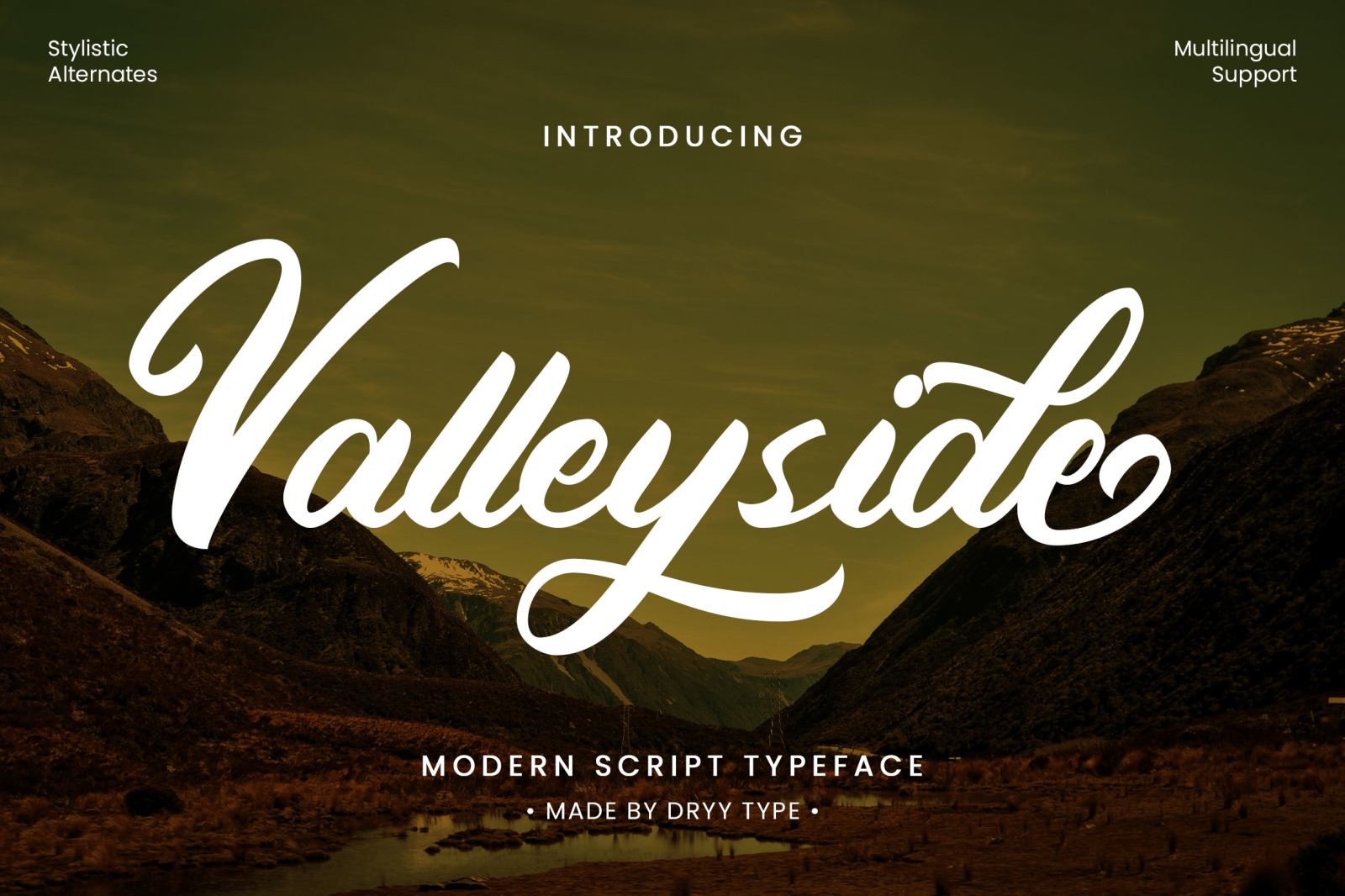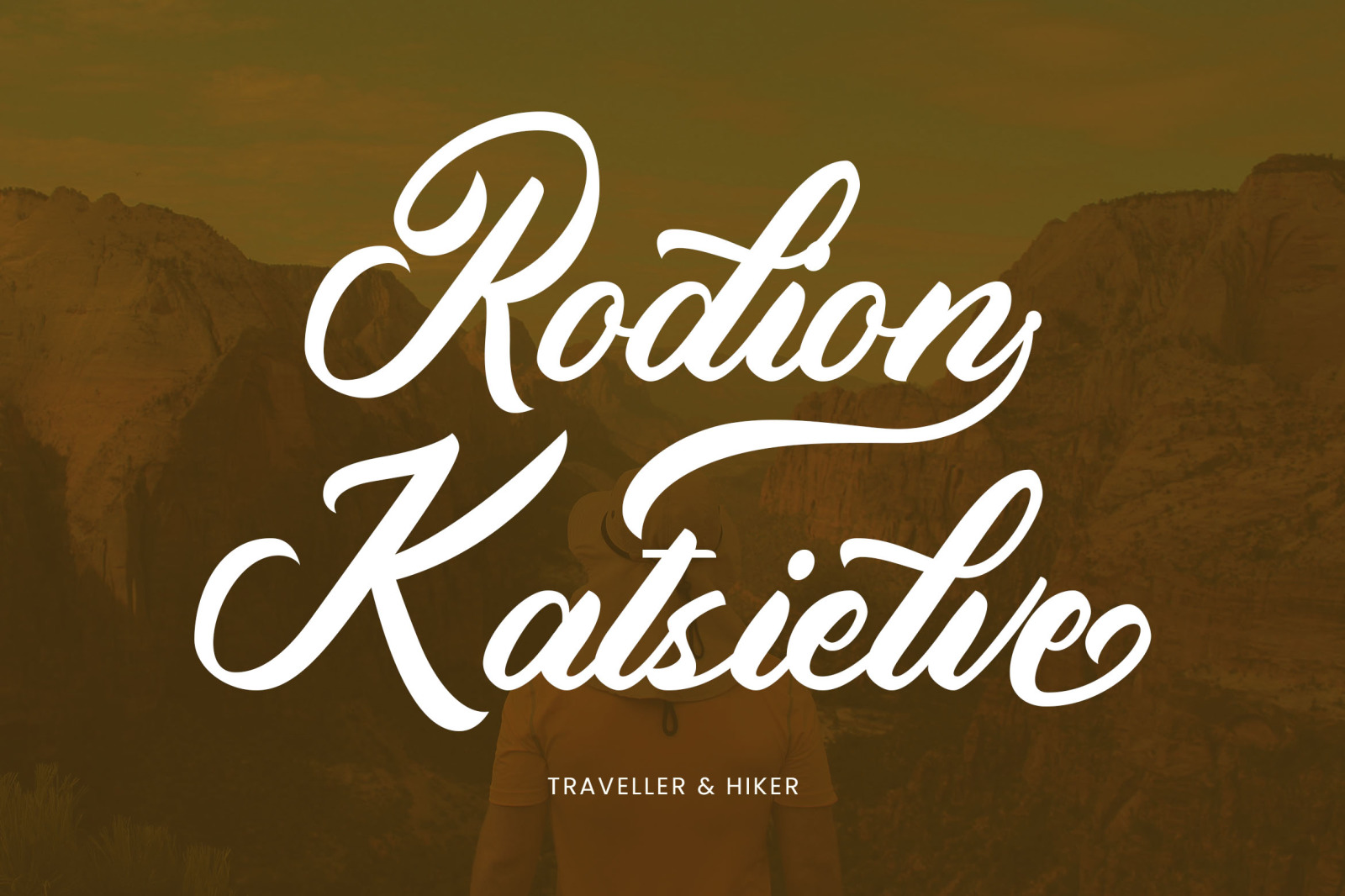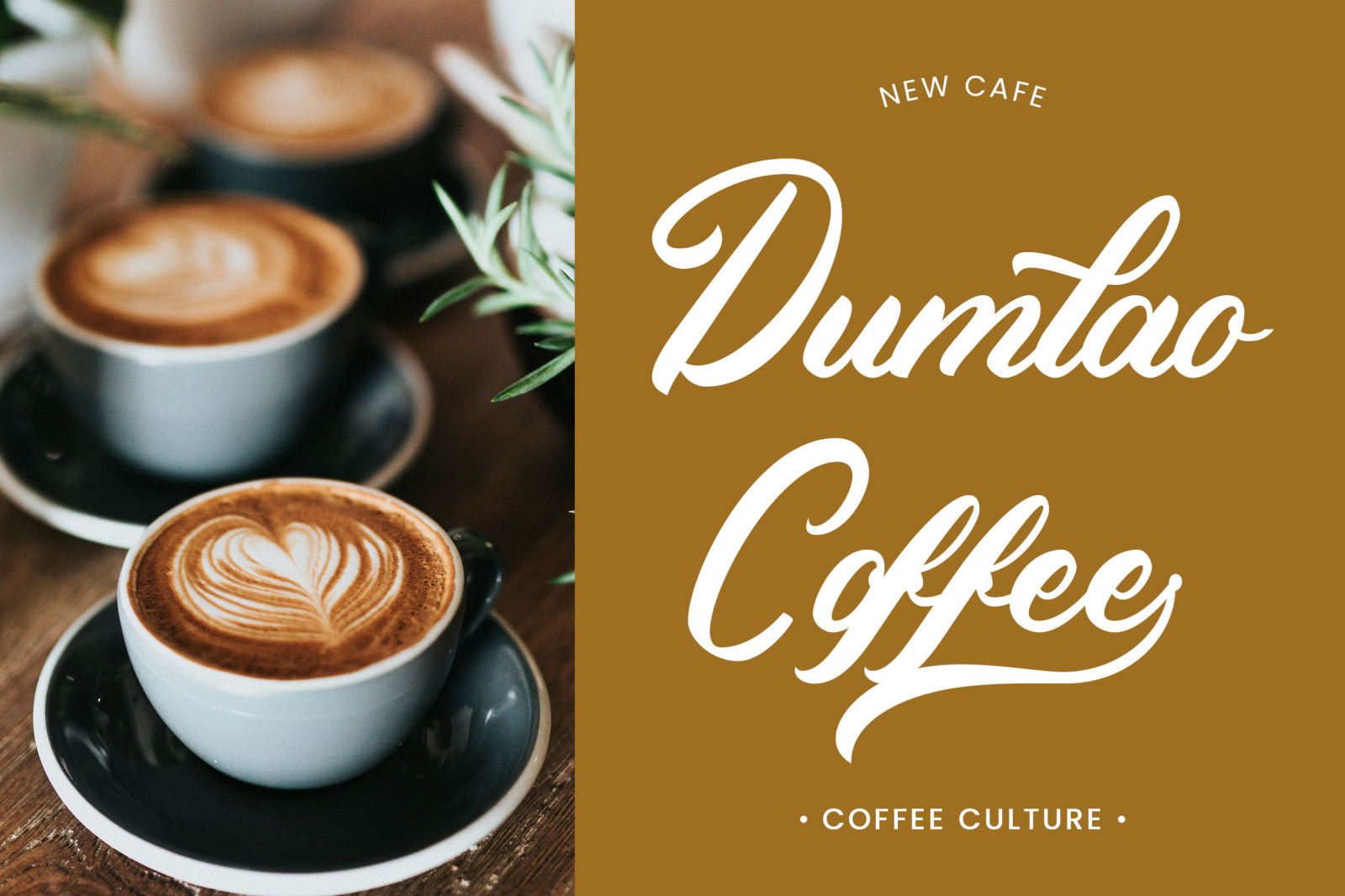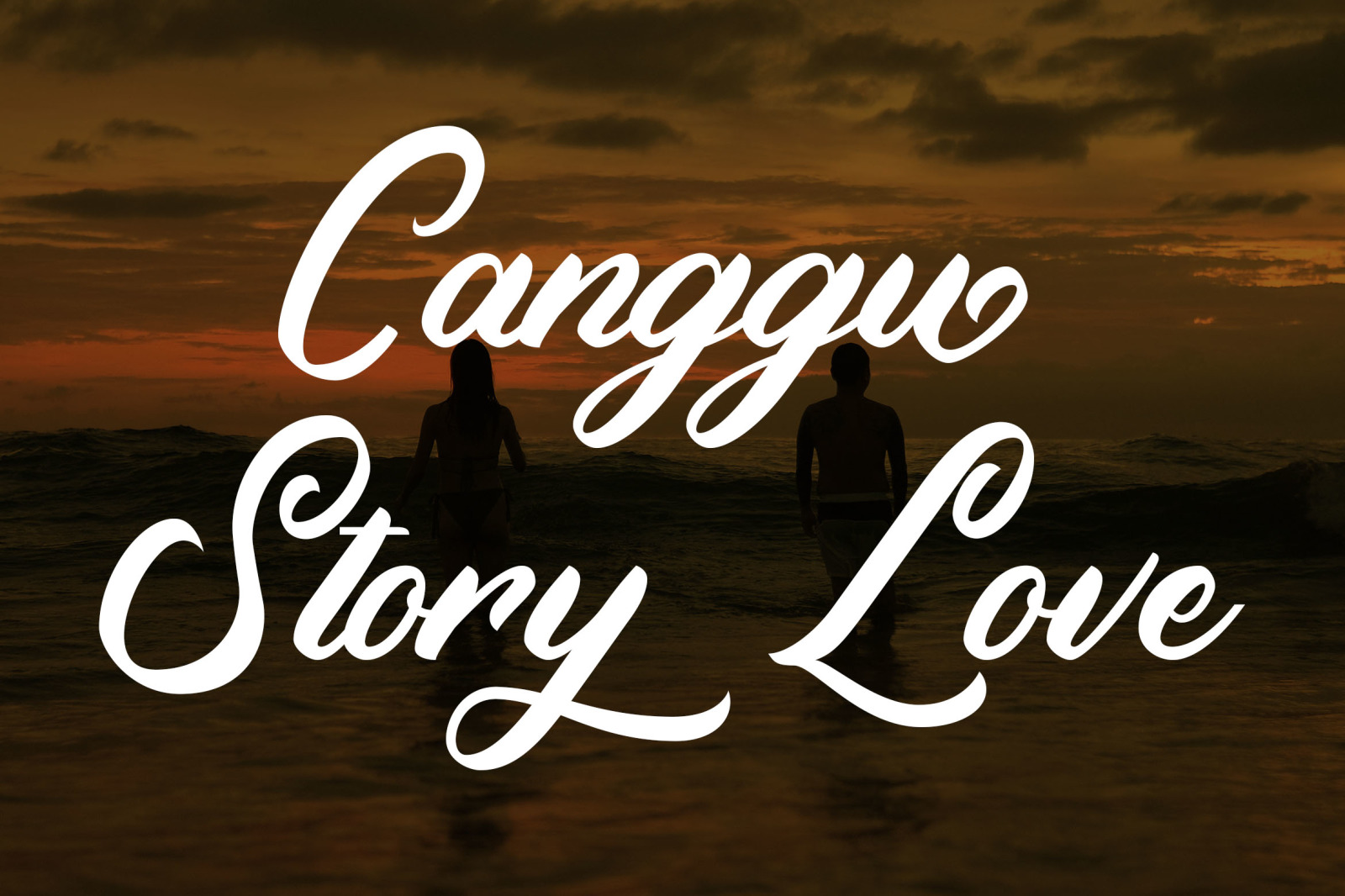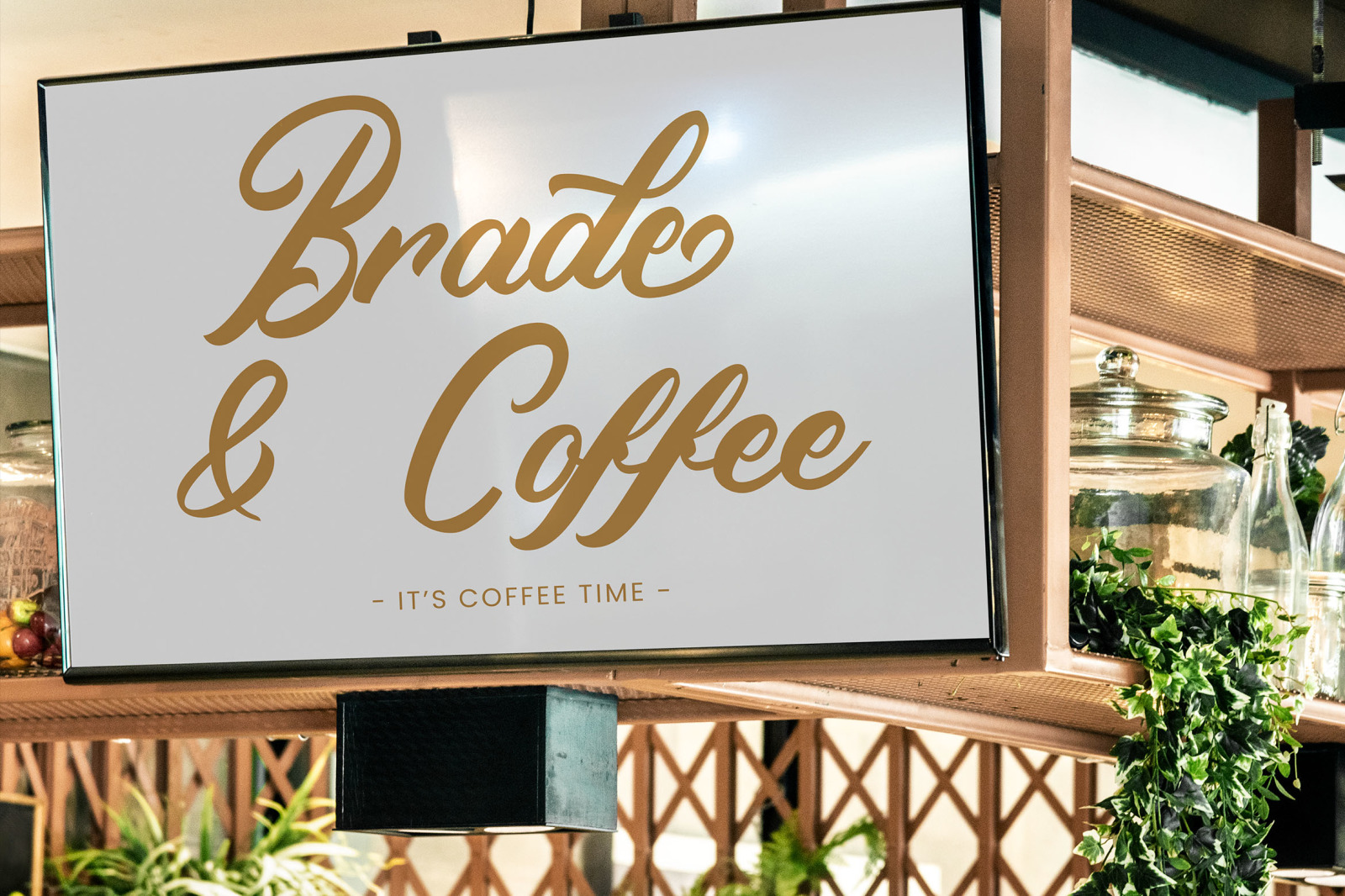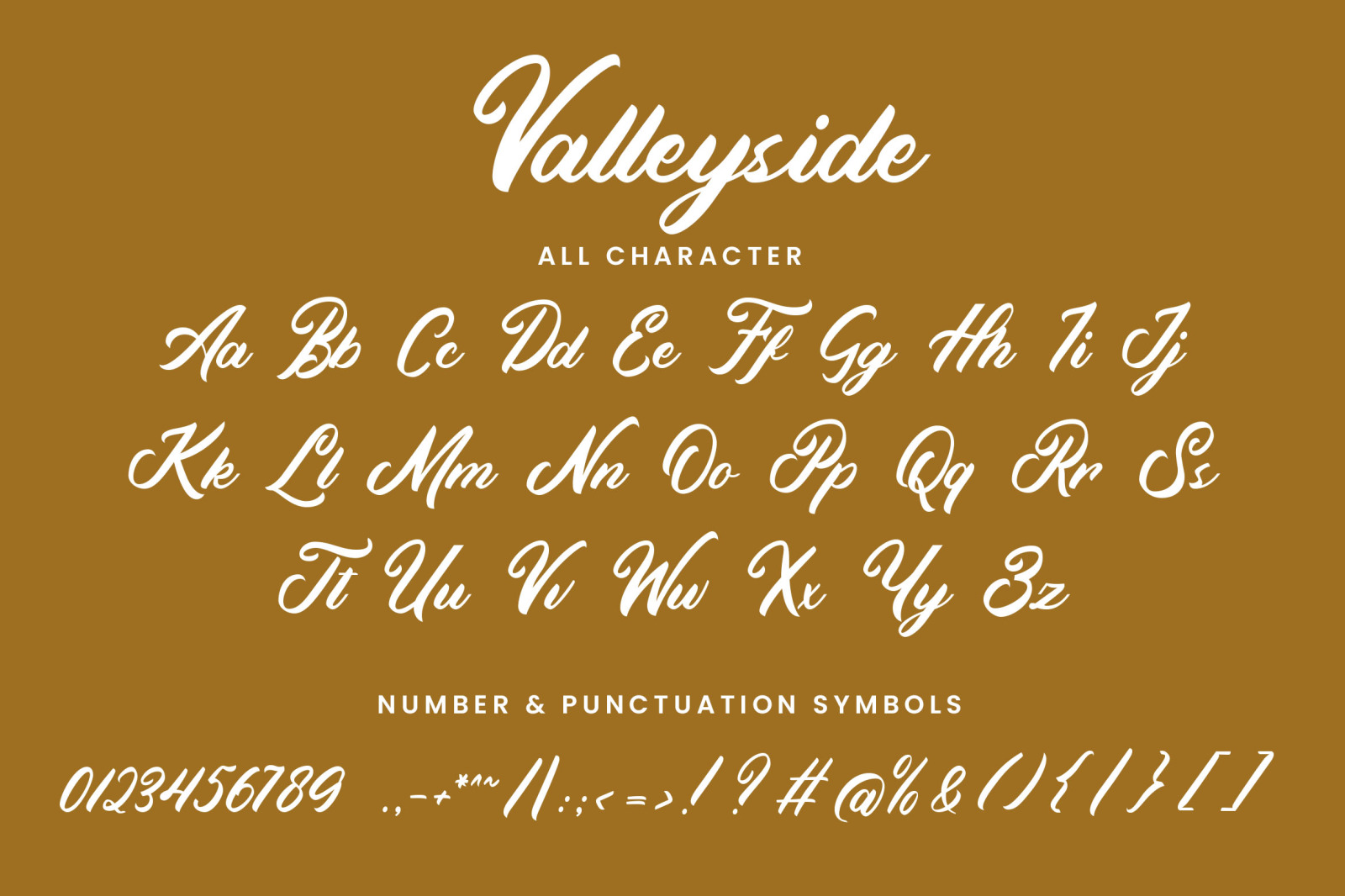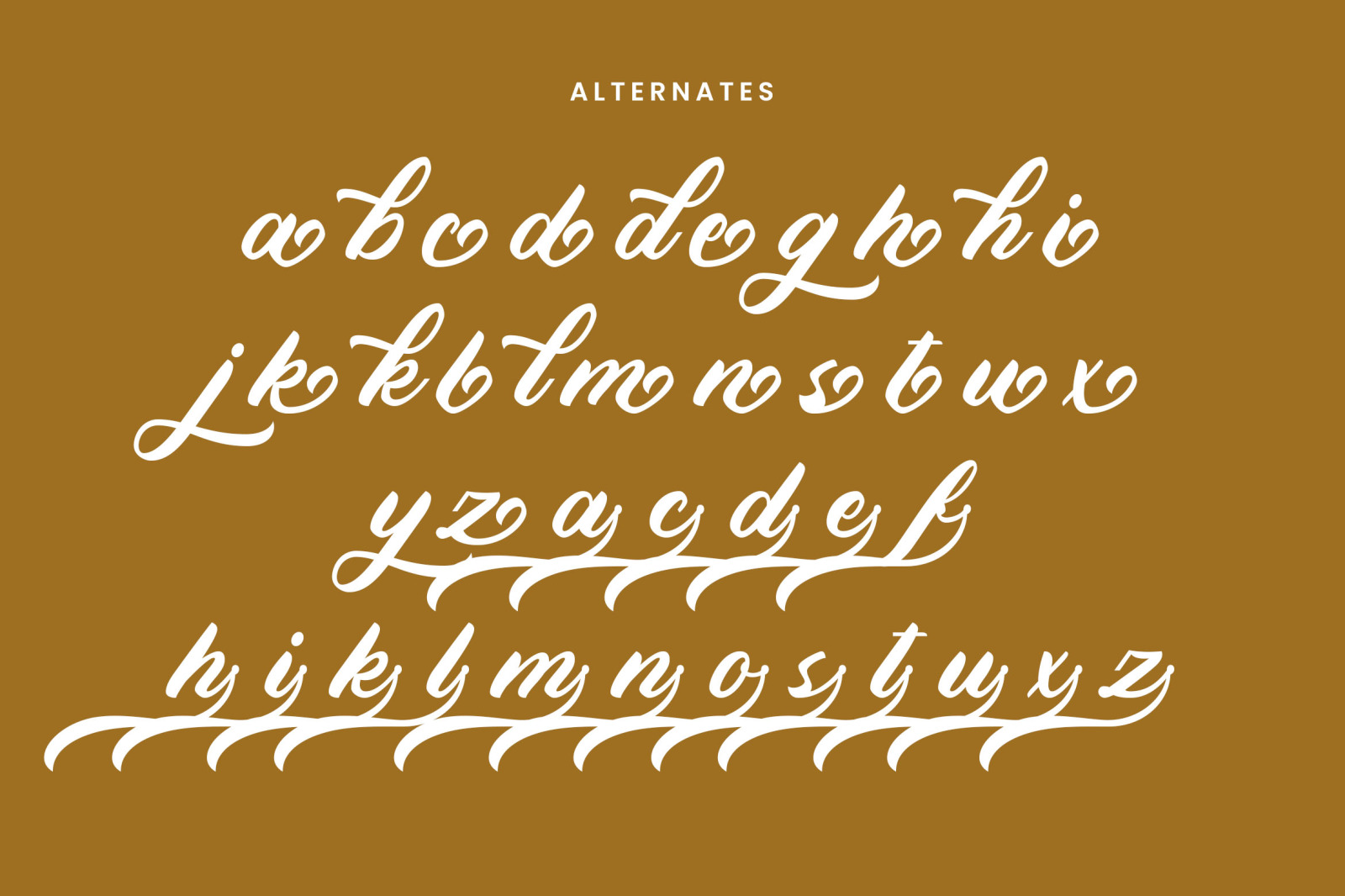
Valleyside Font
Valleyside font is a Script Display font, This font I created is meaningful & very versatile, it goes well with various designs, elevating them to the highest level. Add this font to your favorite creative ideas and see how it comes to life!
Features : Uppercase, Lowercase, Alternaates, Numerical, & Multilingual Support.